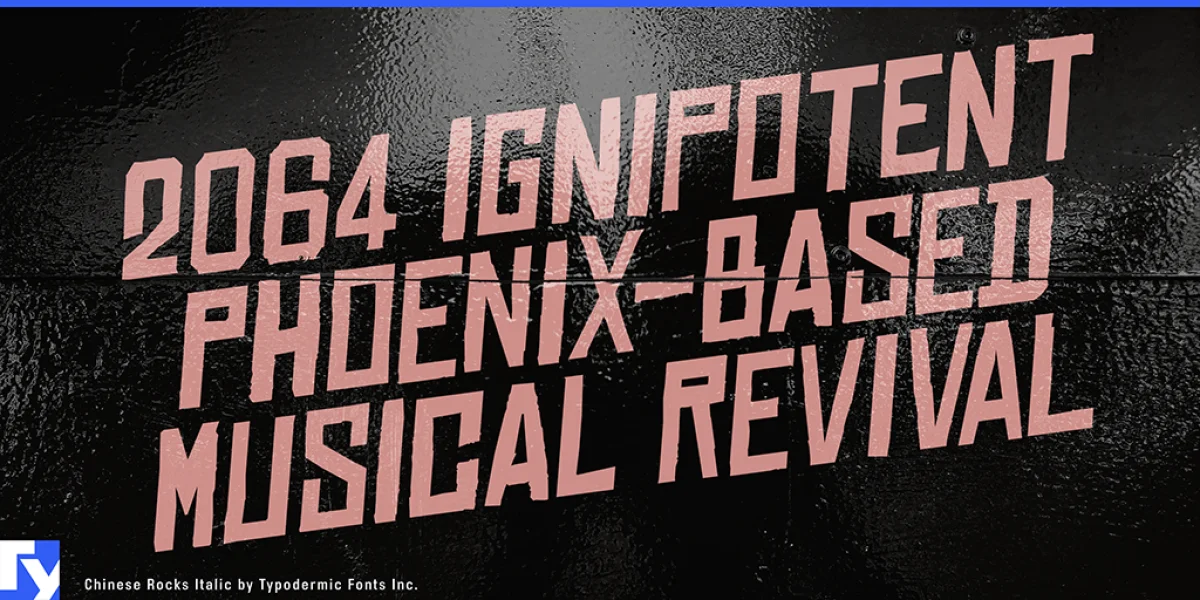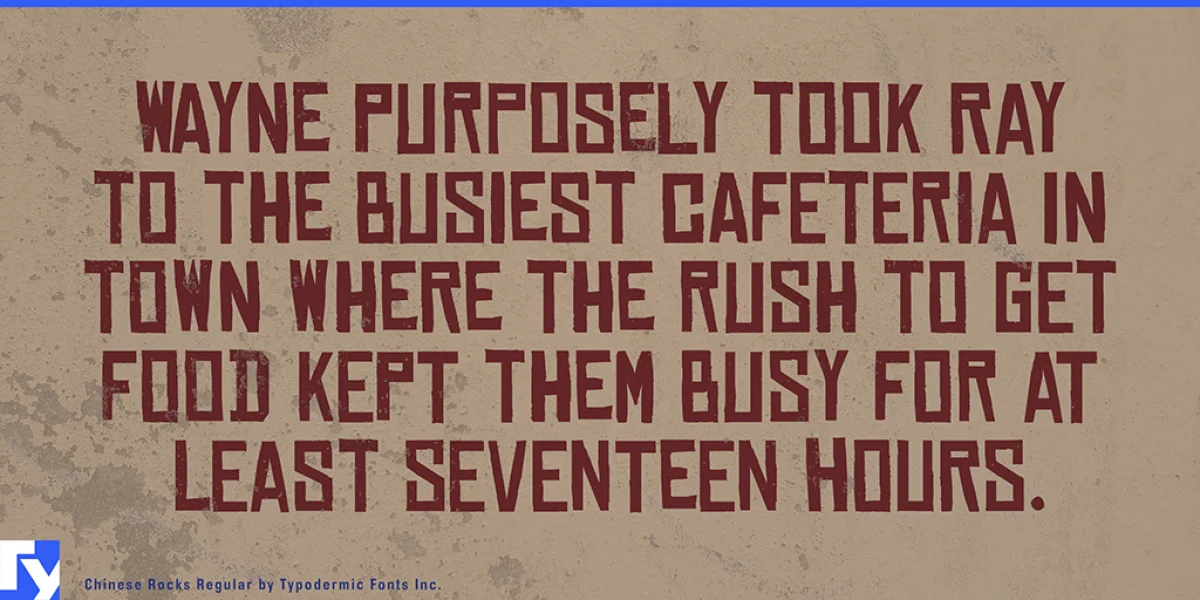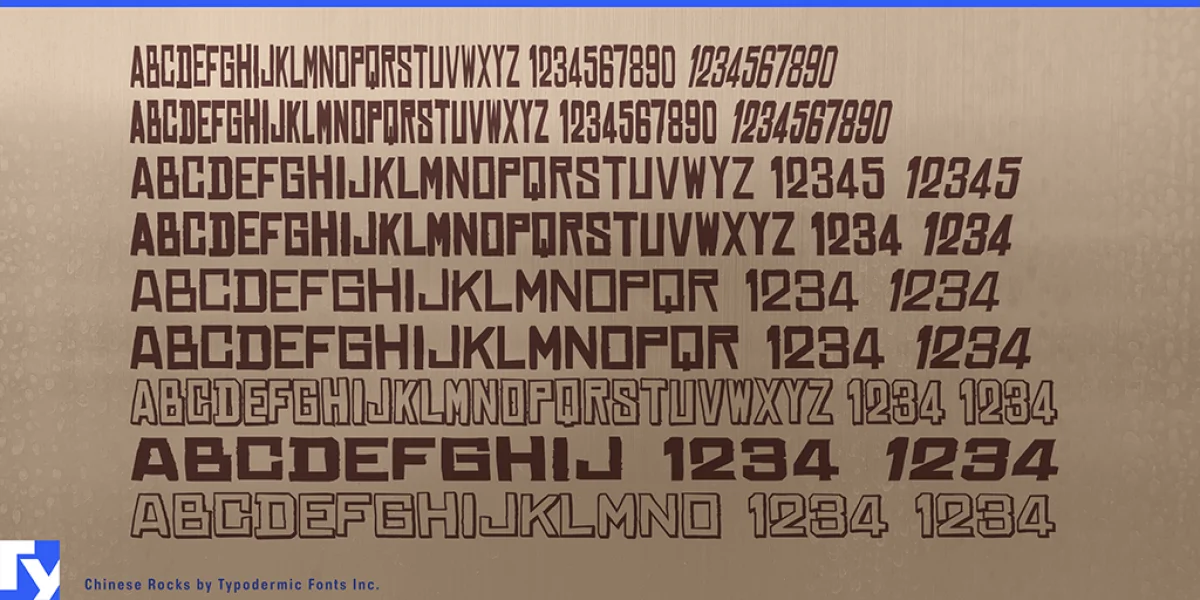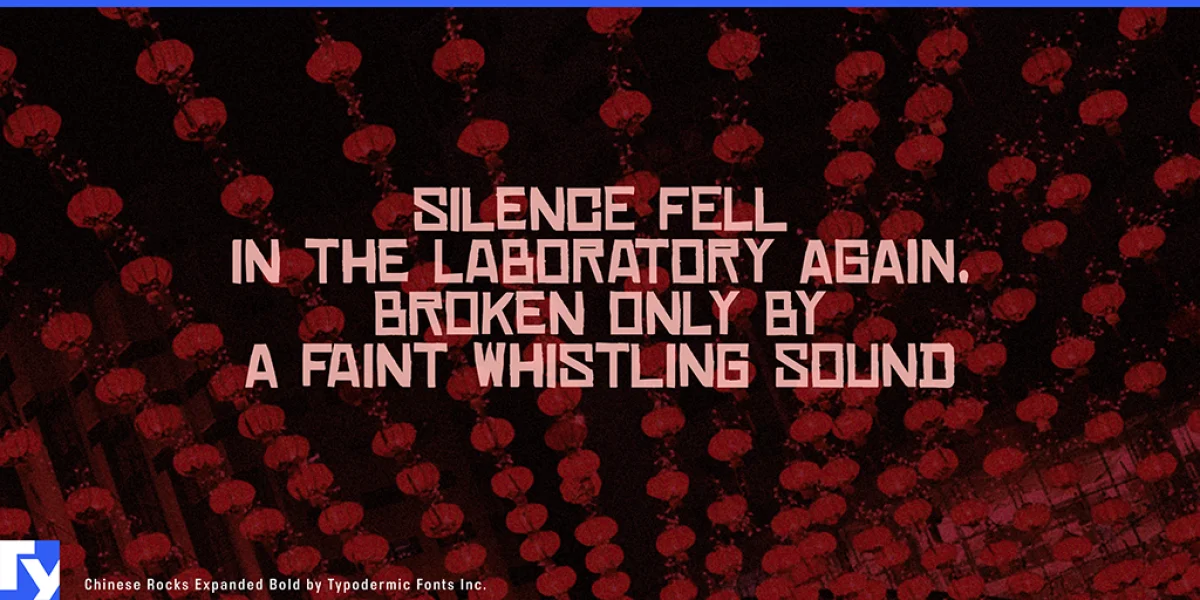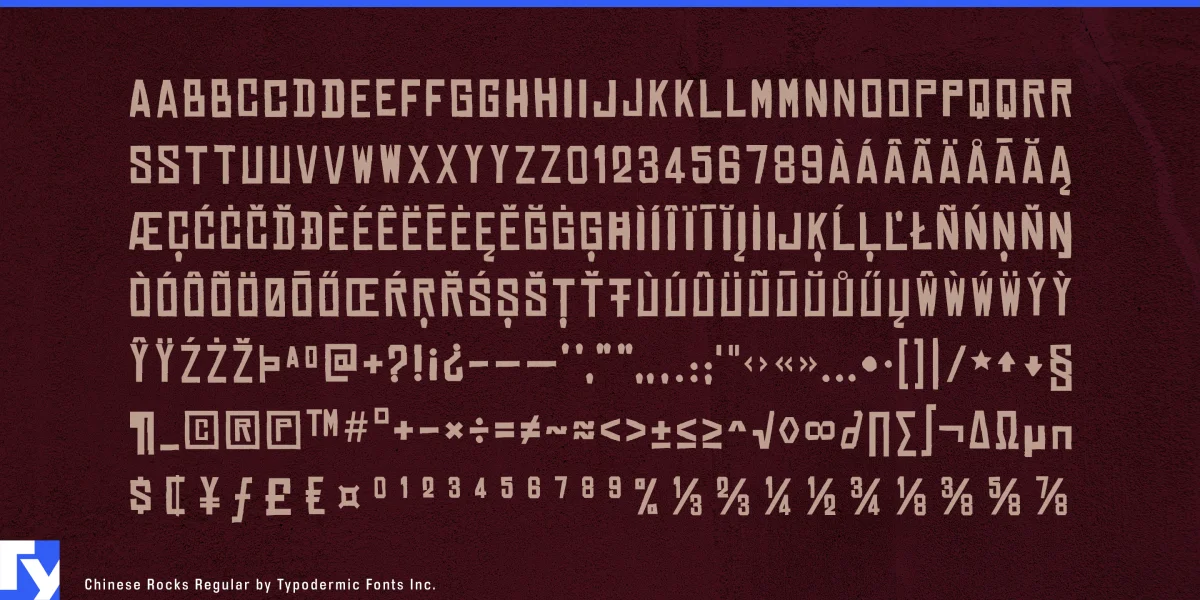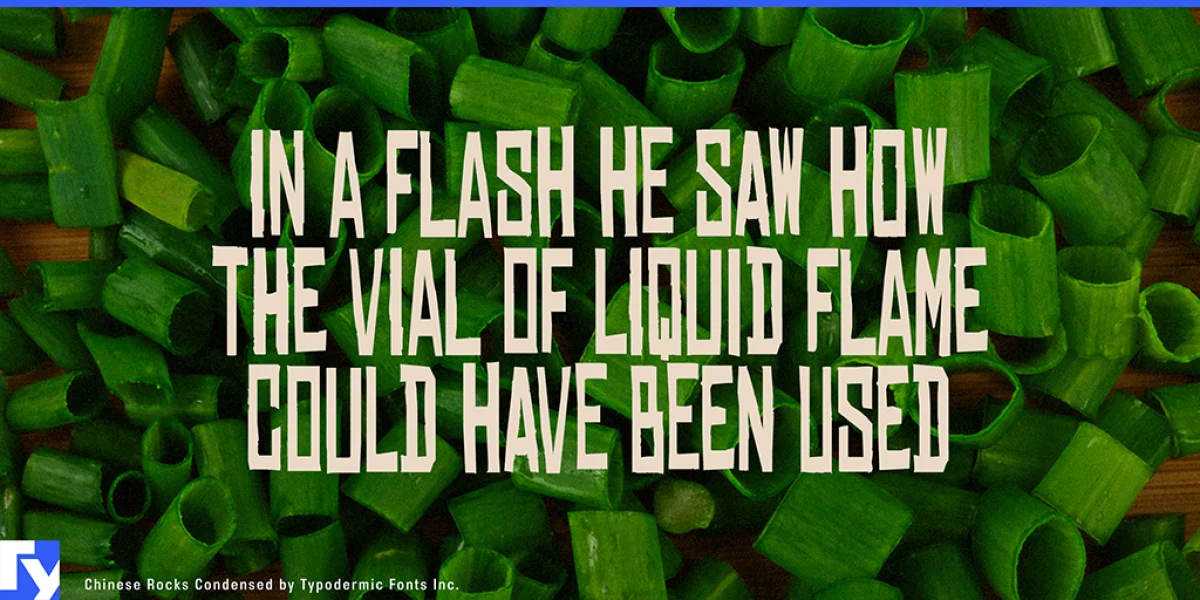
Chinese Rocks was inspired by hand-cut rubber-stamp writing on Chinese export crates from the twentieth century. The handcrafted nature of this typeface lends your phrases a raw, casual tone. Chinese Rocks comes in sixteen different styles, including Fat, Condensed, and Shaded. Most Latin-based European writing systems are supported, including the following languages. Afaan Oromo, Afar, Afrikaans, Albanian, Alsatian, Aromanian, Aymara, Bashkir (Latin), Basque, Belarusian (Latin), Bemba, Bikol, Bosnian, Breton, Cape Verdean, Creole, Catalan, Cebuano, Chamorro, Chavacano, Chichewa, Crimean Tatar (Latin), Croatian, Czech, Danish, Dawan, Dholuo, Dutch, English, Estonian, Faroese, Fijian, Filipino, Finnish, French, Frisian, Friulian, Gagauz (Latin), Galician, Ganda, Genoese, German, Greenlandic, Guadeloupean Creole, Haitian Creole, Hawaiian, Hiligaynon, Hungarian, Icelandic, Ilocano, Indonesian, Irish, Italian, Jamaican, Kaqchikel, Karakalpak (Latin), Kashubian, Kikongo, Kinyarwanda, Kirundi, Kurdish (Latin), Latvian, Lithuanian, Lombard, Low Saxon, Luxembourgish, Maasai, Makhuwa, Malay, Maltese, Māori, Moldovan, Montenegrin, Ndebele, Neapolitan, Norwegian, Novial, Occitan, Ossetian (Latin), Papiamento, Piedmontese, Polish, Portuguese, Quechua, Rarotongan, Romanian, Romansh, Sami, Sango, Saramaccan, Sardinian, Scottish Gaelic, Serbian (Latin), Shona, Sicilian, Silesian, Slovak, Slovenian, Somali, Sorbian, Sotho, Spanish, Swahili, Swazi, Swedish, Tagalog, Tahitian, Tetum, Tongan, Tshiluba, Tsonga, Tswana, Tumbuka, Turkish, Turkmen (Latin), Tuvaluan, Uzbek (Latin), Venetian, Vepsian, Võro, Walloon, Waray-Waray, Wayuu, Welsh, Wolof, Xhosa, Yapese, Zapotec Zulu and Zuni.